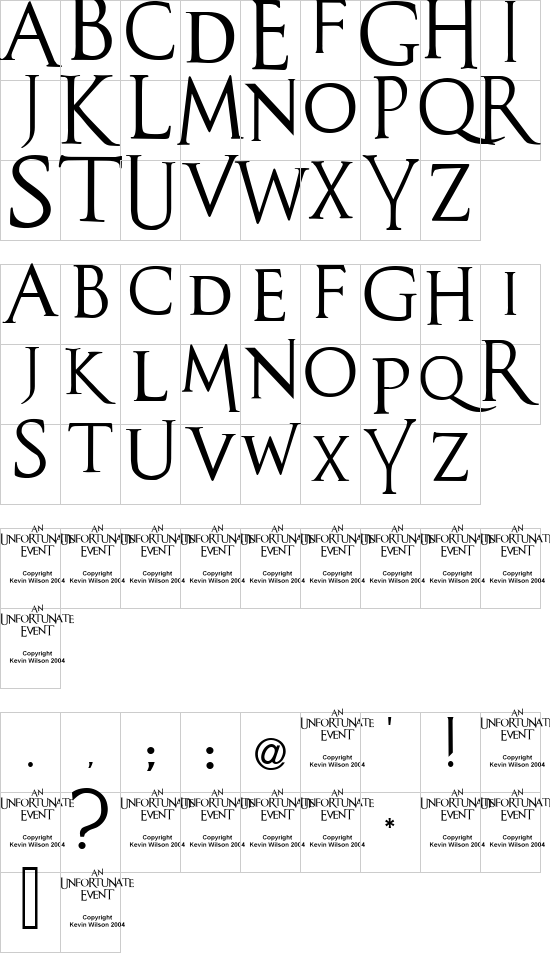
An Unfortunate Event is a distorted serif with an eerie, off-kilter personality reminiscent of gothic storybook lettering. The serifs lean and warp, the proportions tilt slightly out of true, giving the whole face a mysterious, faintly grim mood that suits darkly whimsical tales rather than cheerful ones.
Use An Unfortunate Event for dark children's titles, mystery book covers, theatrical posters, and spooky branding where uneasy storybook charm fits. The font is free to download as a TrueType file, and the preview lets you type your own text so you can see how its warped serif forms read across a title or short heading.